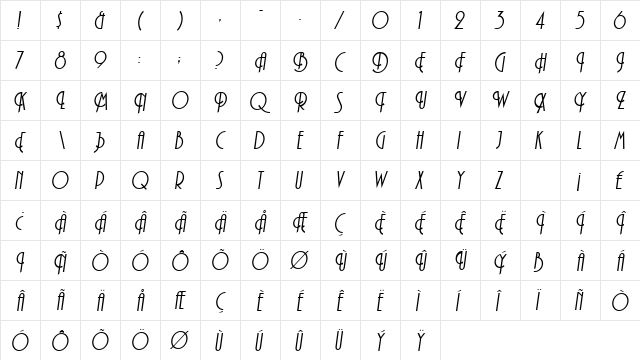
HamanCond Oblique
Design Context for HamanCond Typeface
HamanCond offers clean, dependable letterforms without strong stylistic allegiance, making it a practical choice for designers who need flexibility. Its italic angle brings a sense of urgency and motion to the letterforms. Its narrow stance lets it pack a punch even in space-constrained designs.
Pro Tip: Use HamanCond for emphasis, pull quotes, and subheadings where its slanted energy can add rhythm to the layout.